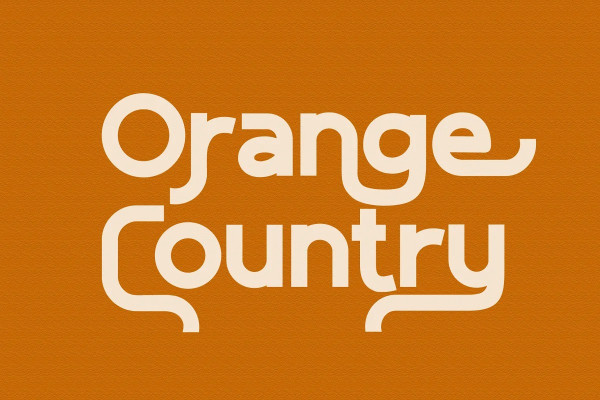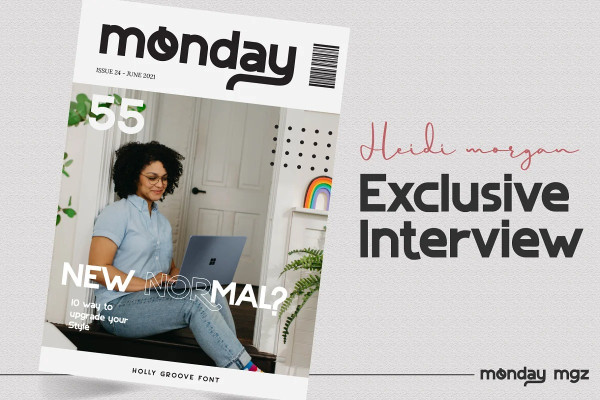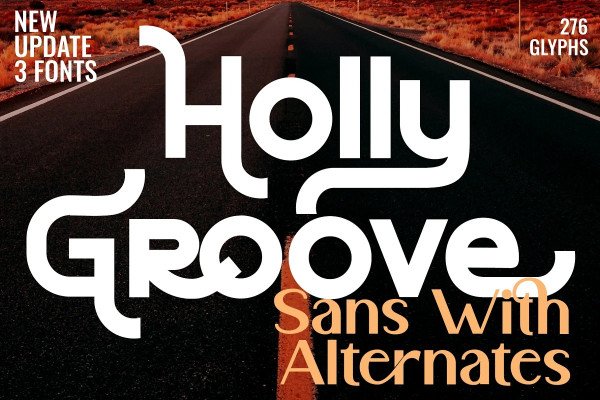
Holly Groove Font
Holly Groove Font is a sans serif font with beautifull swashes, masterfully designed to become a true favorite. It maintains its classy calligraphic influences while feeling modern and fresh.